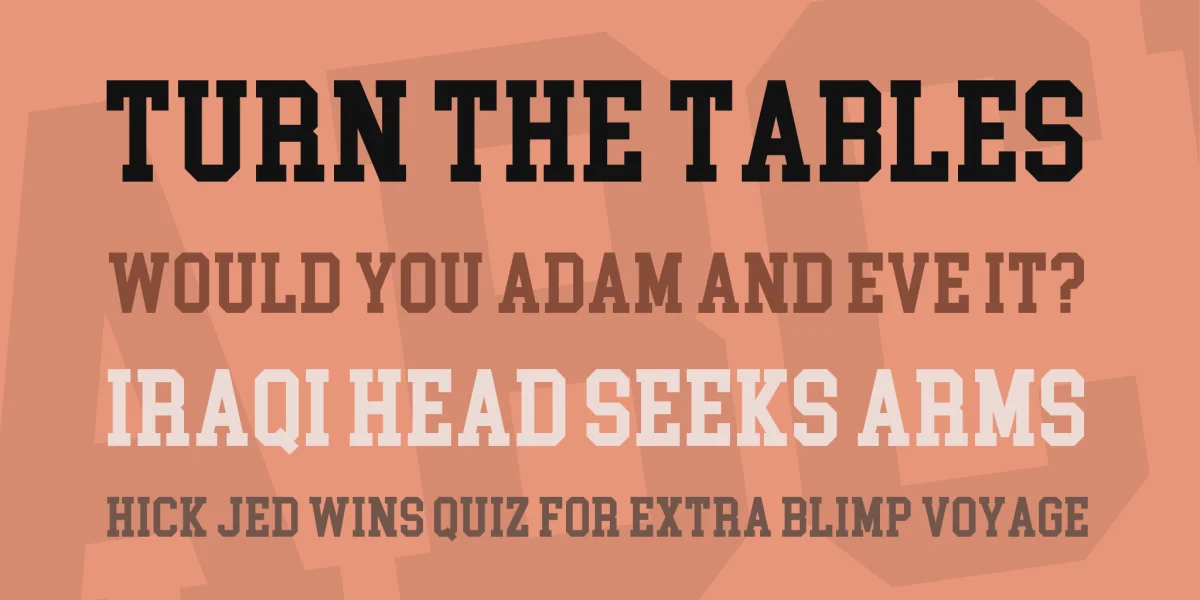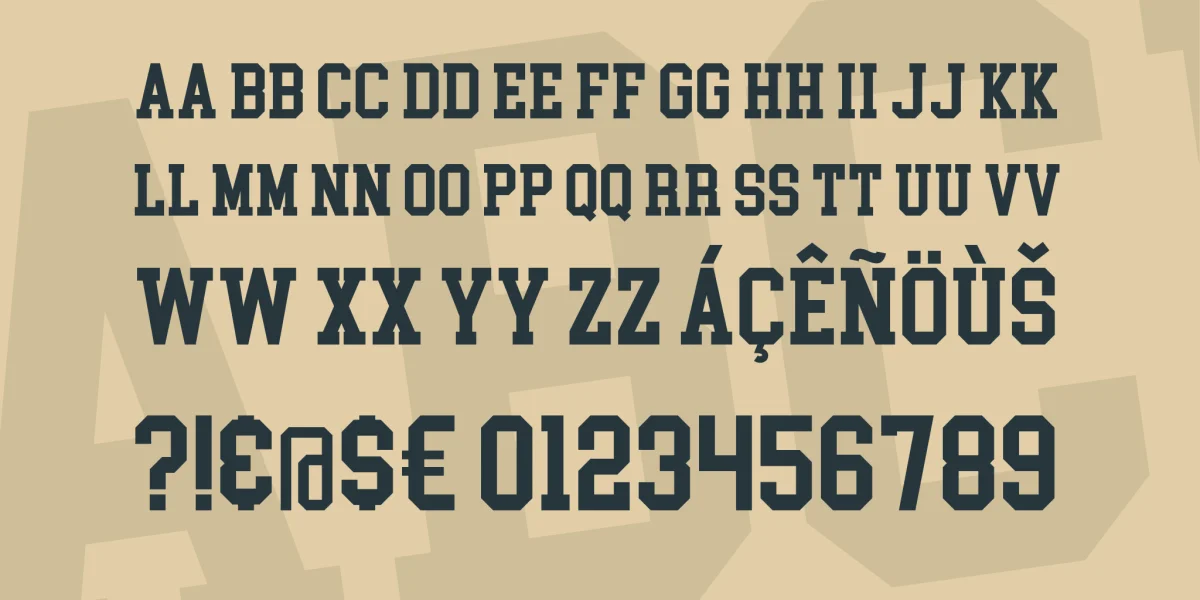
WAKE UP!! Class is in session! College Block is a modified version of Blockletter Tall featuring many new glyphs and of course serifs reminiscent of that used on collegiate sweatshirts. Kerning and European accents are included. Use it for your own tees or campus project.